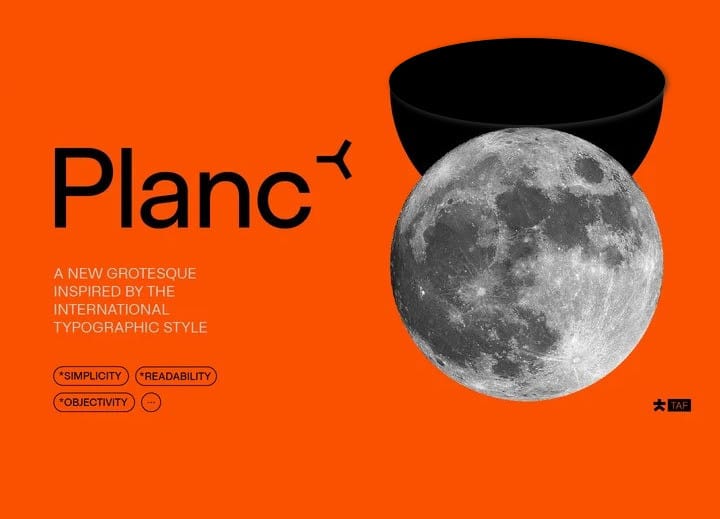
Planc Font
Planc Sans Serif Font – a elegant sans serif with beautiful contrast. Made from font designer named Taner Ardali.  It is a new grotesque family with its subtle touches of details. Its relaxed proportional structure differentiates Planc from the usual grotesque anatomy, meeting the grotesque font requirement that can keep up with today.
In addition to the solid grid structure on the horizontal axis, with its smoothed curves, Planc provides a comfortable reading flow and avoids being dull with its details. Its minimalist approach comes from Planc’s reduced dysfunctional details. As a clean design principle, it contains innovative letterforms.
Planc Sans Serif Font